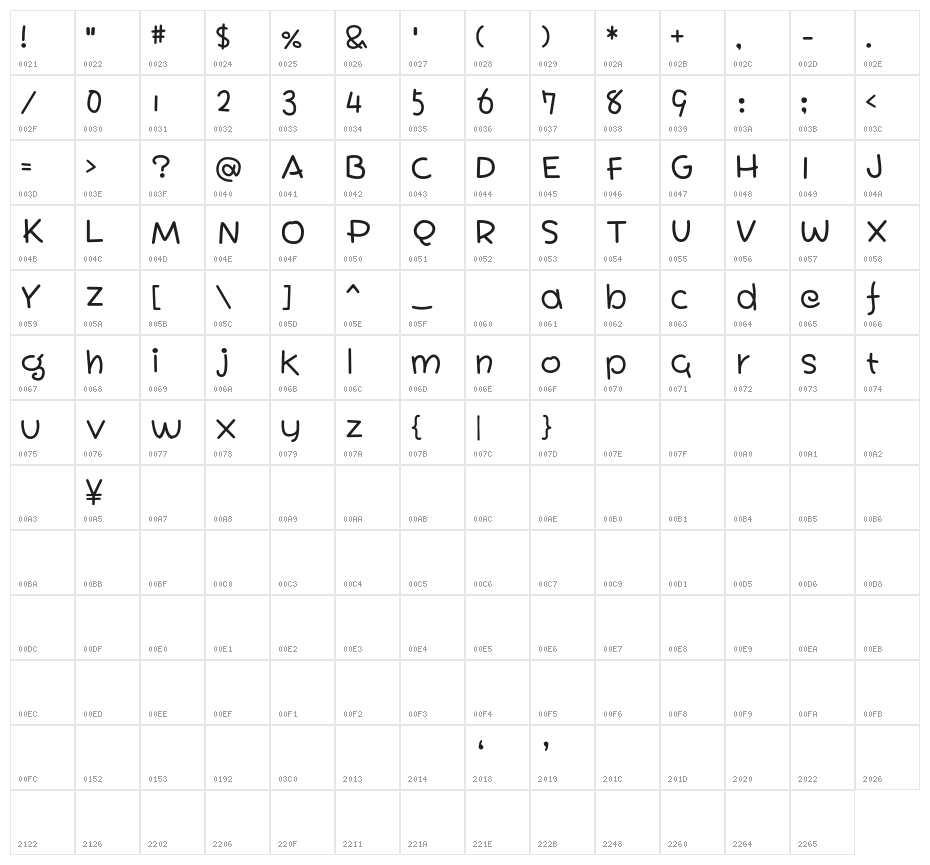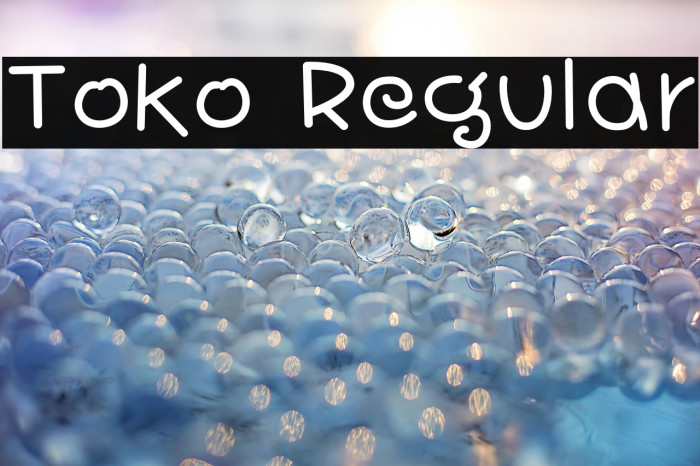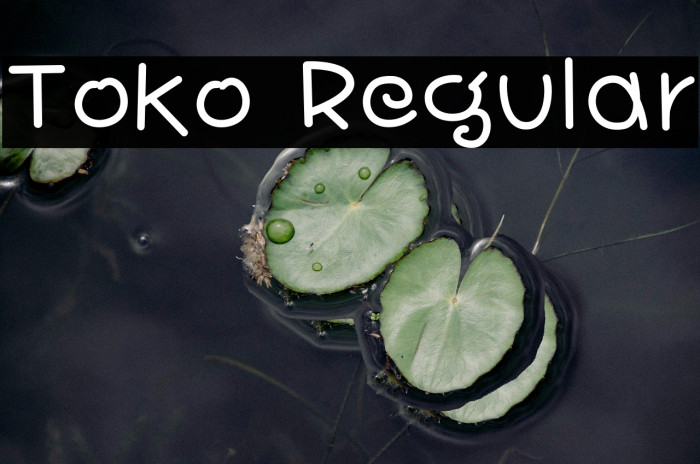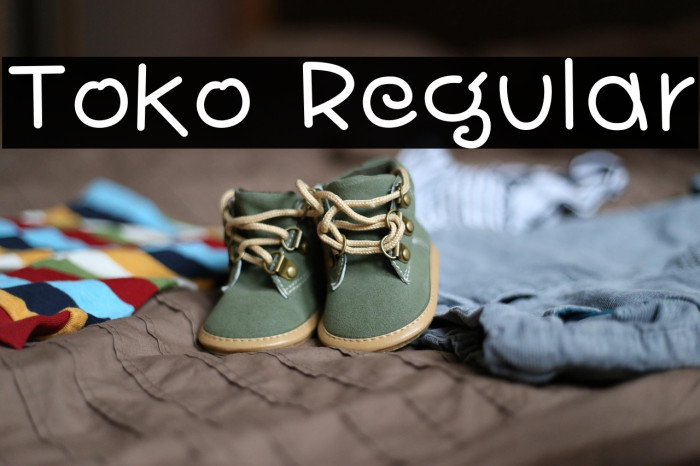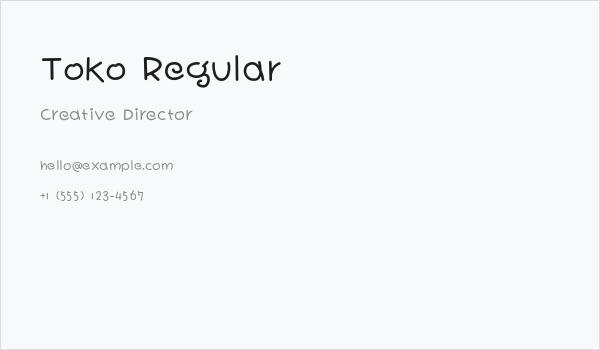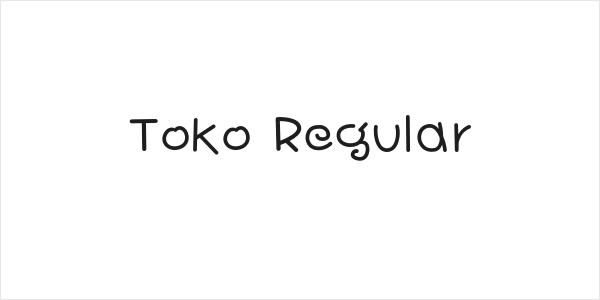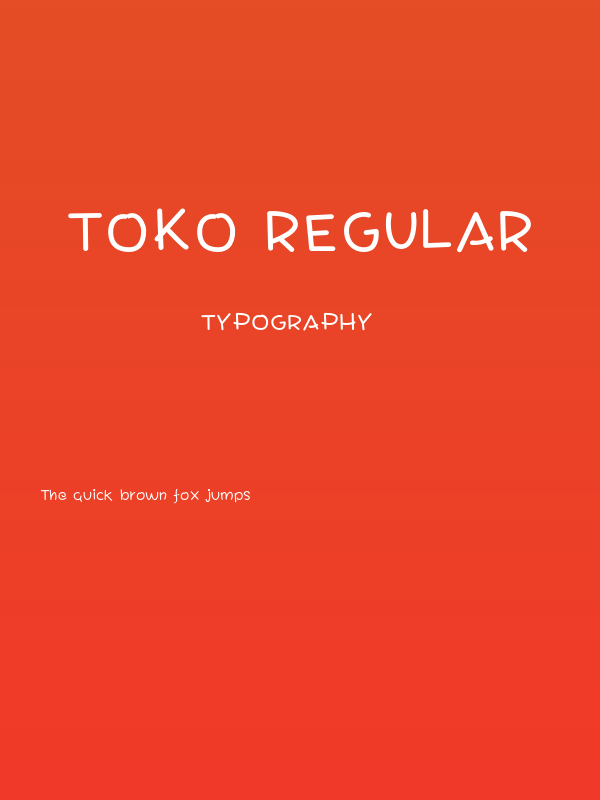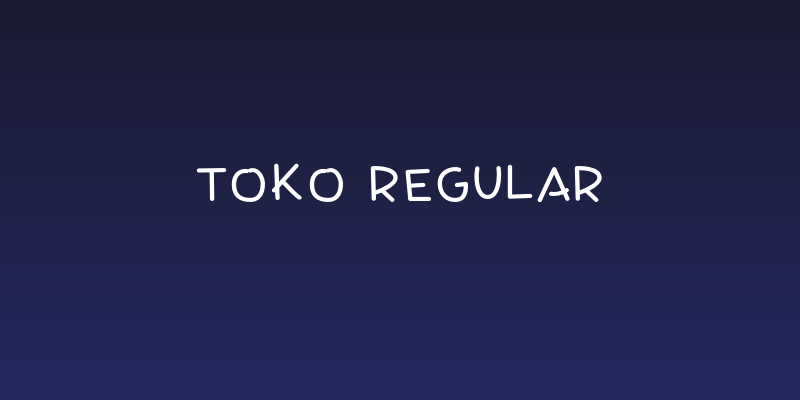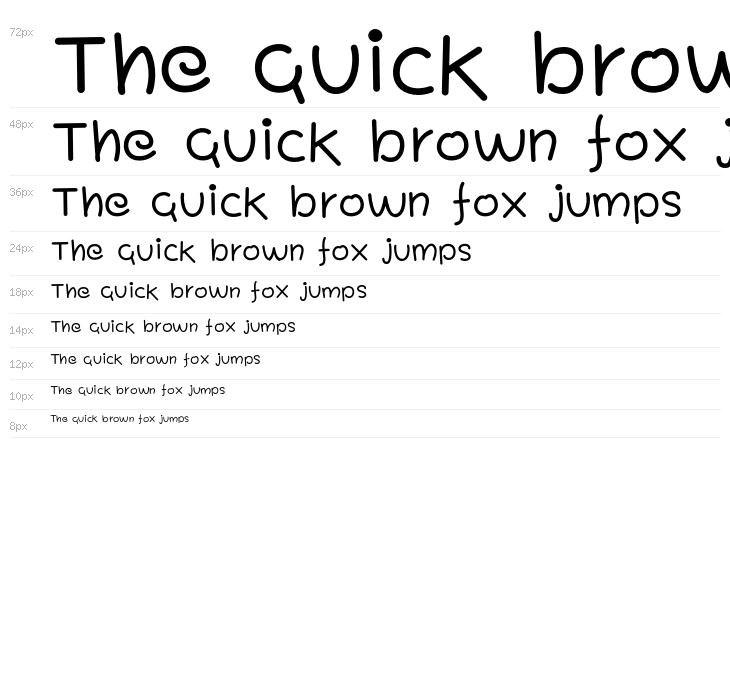
Toko Regular Font
Toko Regular Description
This font features a playful and casual handwritten style, characterized by its rounded and slightly irregular letterforms. The strokes are smooth and consistent, giving it a friendly and approachable appearance. The uppercase and lowercase letters maintain a uniform height, contributing to its readability. The numerals and special characters are designed to match the overall whimsical aesthetic, making it suitable for informal and creative projects. The font's simplicity and charm make it versatile for various design applications.